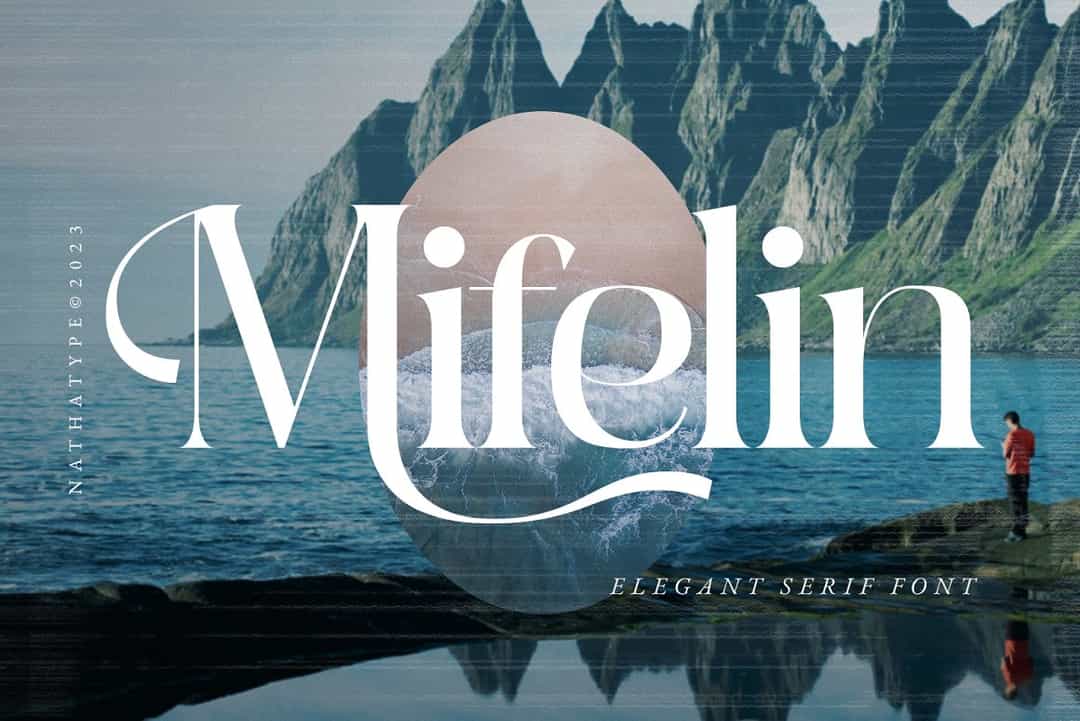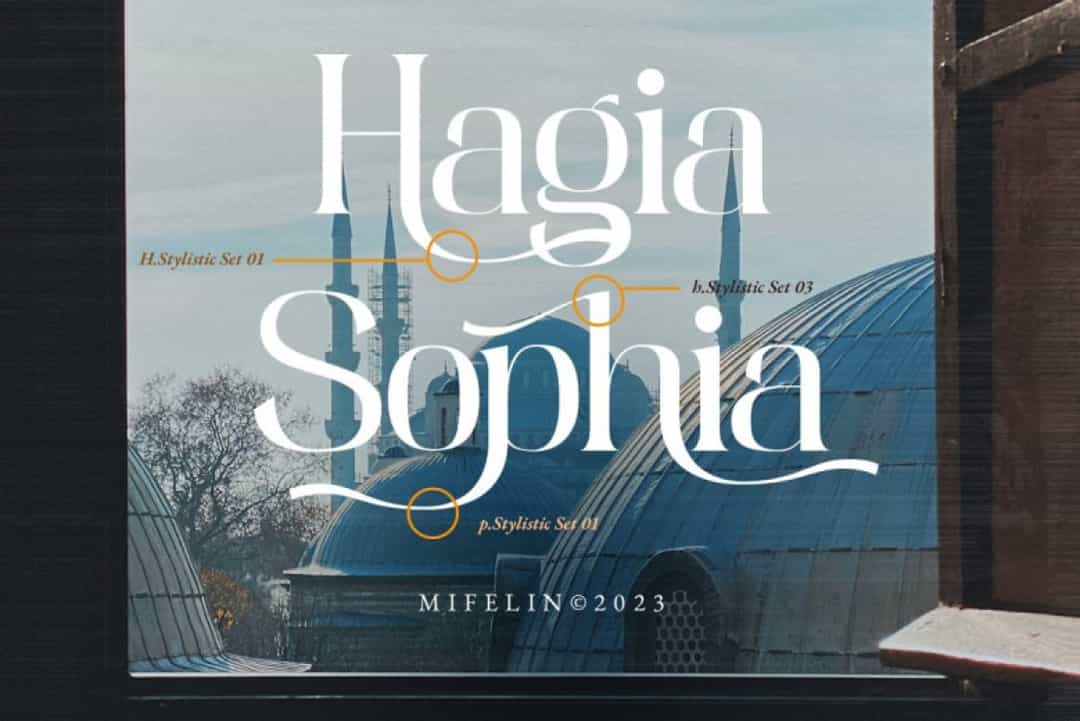
Mifelin is an easily readable serif font featuring distinct serifs at each letter’s end that create an elegant and structured appearance. These distinct serifs give this font its stylish and professional appearance while its harmonious proportions of width to height make sure each letter can be easily read; its lettering line also has smoothness and clarity that differentiates each character in this font family.